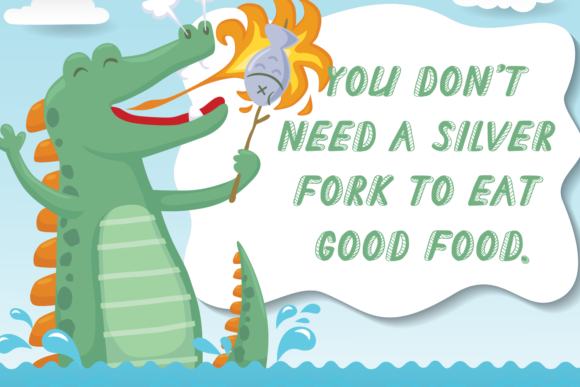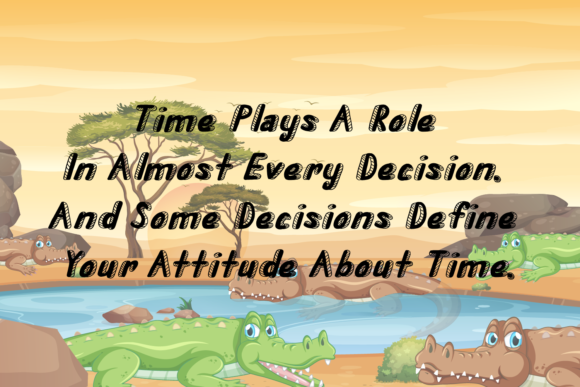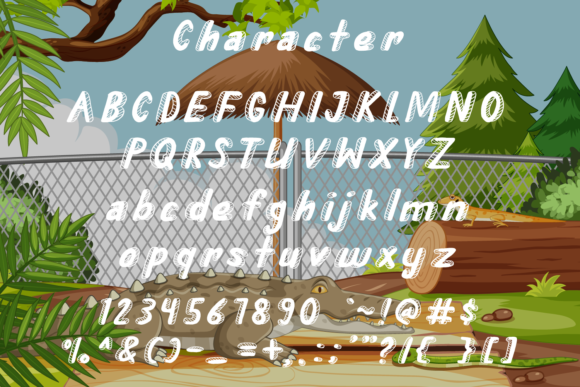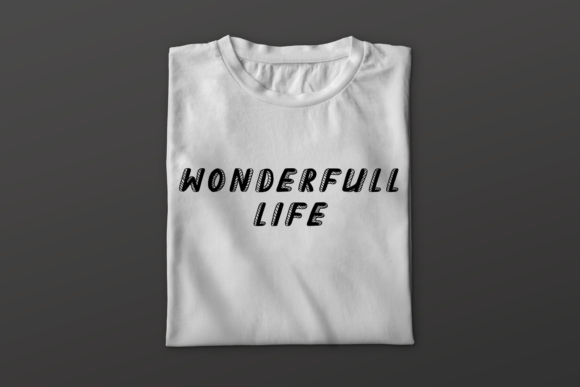
Introduction to First Alligator Font
First Alligator is a cool and adaptable display font.
This font is suitable for designs such as t-shirts, sportswear, logos, advertisements, clothing, and more .
Key Features of First Alligator Font
Why Choose First Alligator Font?
First Alligator Font offers exceptional quality and versatility, making it a valuable addition to your design toolkit. Whether you’re creating for personal projects or commercial use, First Alligator Font delivers professional results.